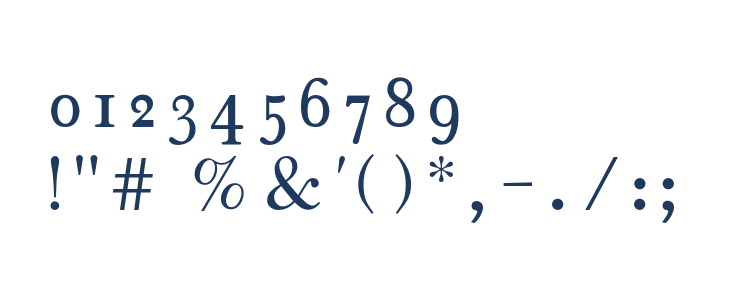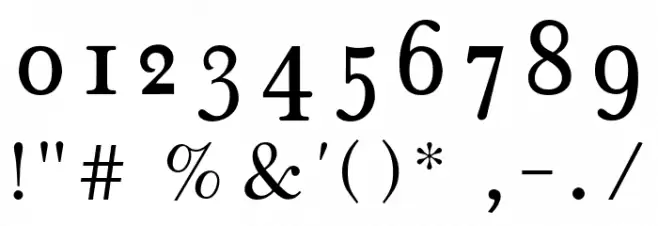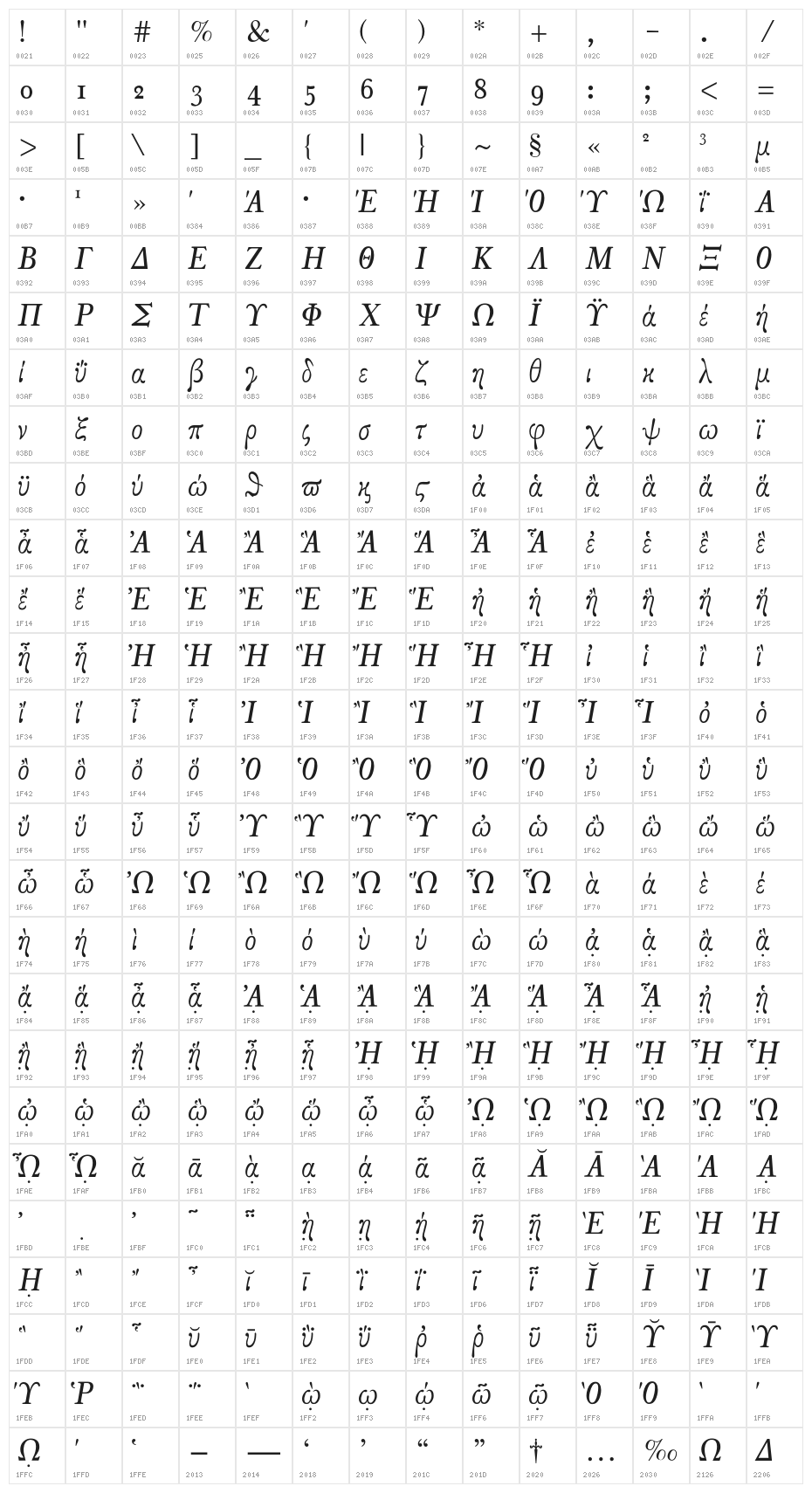
GFSBaskerville-Regular Font
GFSBaskerville-Regular Description
This font exhibits a classic serif style with elegant and refined letterforms. The serifs are pronounced, providing a traditional and sophisticated appearance. The strokes vary in thickness, offering a medium contrast that enhances readability while maintaining a timeless aesthetic. The characters are well-proportioned, with a slight emphasis on verticality, which contributes to a formal and authoritative look. The numerals and special characters are designed with the same attention to detail, ensuring consistency throughout the typeface. This font is suitable for projects that require a touch of elegance and tradition.
| Use Case | Body text, Editorial design, Formal documents |
| Proposed Projects | Ideal for book typesetting, formal invitations, editorial design, and branding that requires a traditional touch. |